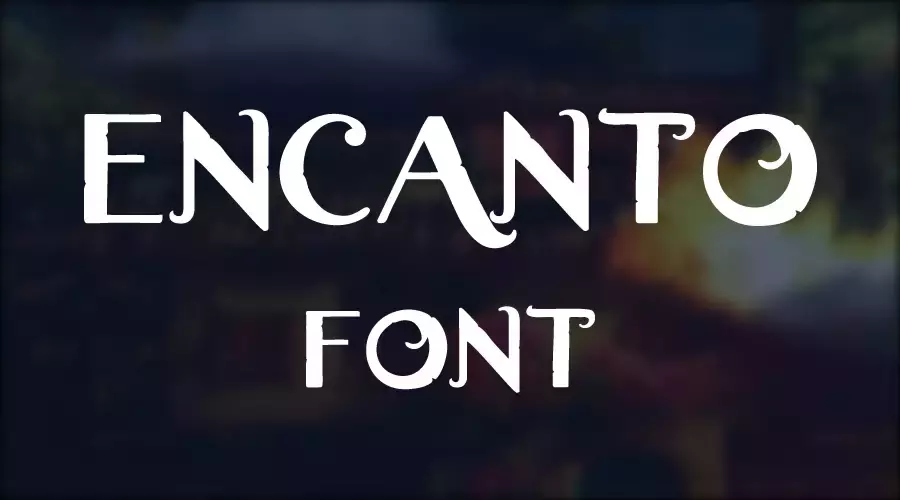
What Font Is Used In Encanto?
Encanto movie is a Disney computer-animated musical fantasy comedy film. It gained widespread fame after its release. The logo font of this movie attracts people, so they begin searching the web for “Encanto font.” However, Disney owns the copyright, so they can use it for their merchandise and services. But we have found a font that is similar to the logo of Encanto. It is named Madrigal font after the Madrigal family in the movie. It is a fan-made font. Although it is called Madrigal font, people call it Encanto font sometimes.
About The Font
Madrigal font is a decorative Disney font that is inspired by the logo font used in the Disney movie Encanto. It is designed and published by NubeFonts. In this font, the letters have thin lines and curved edges, while letters like I, L, and U have sharp edges. Its letter “O” has a small line coming out of the center. This font has 162 glyphs and 161 characters. You will find it in TTF files, and it supports 11 international languages.